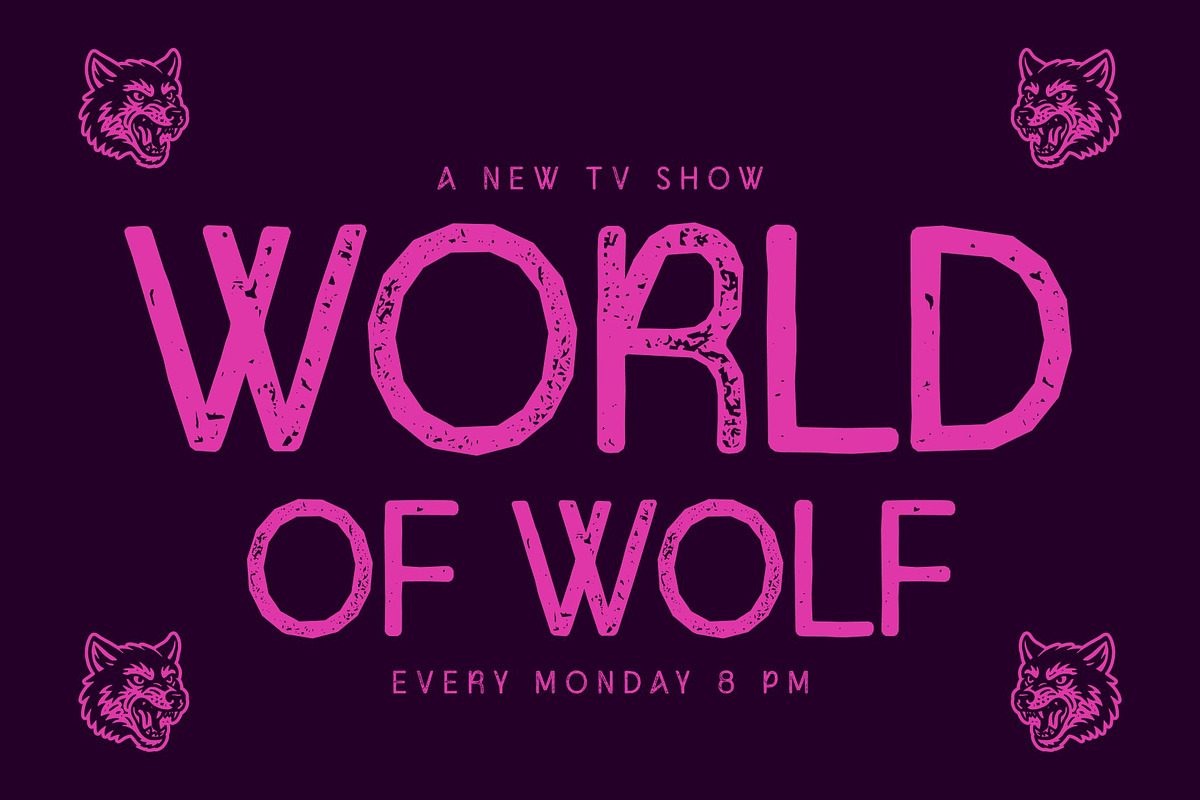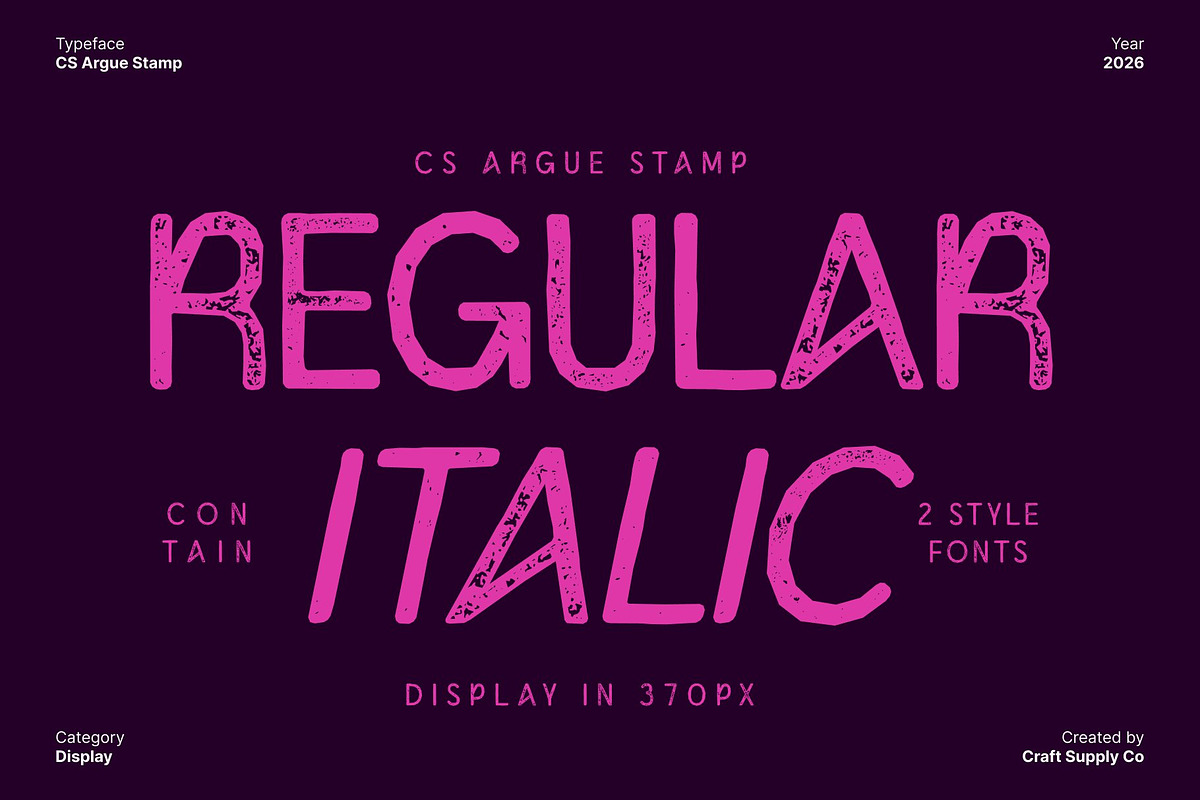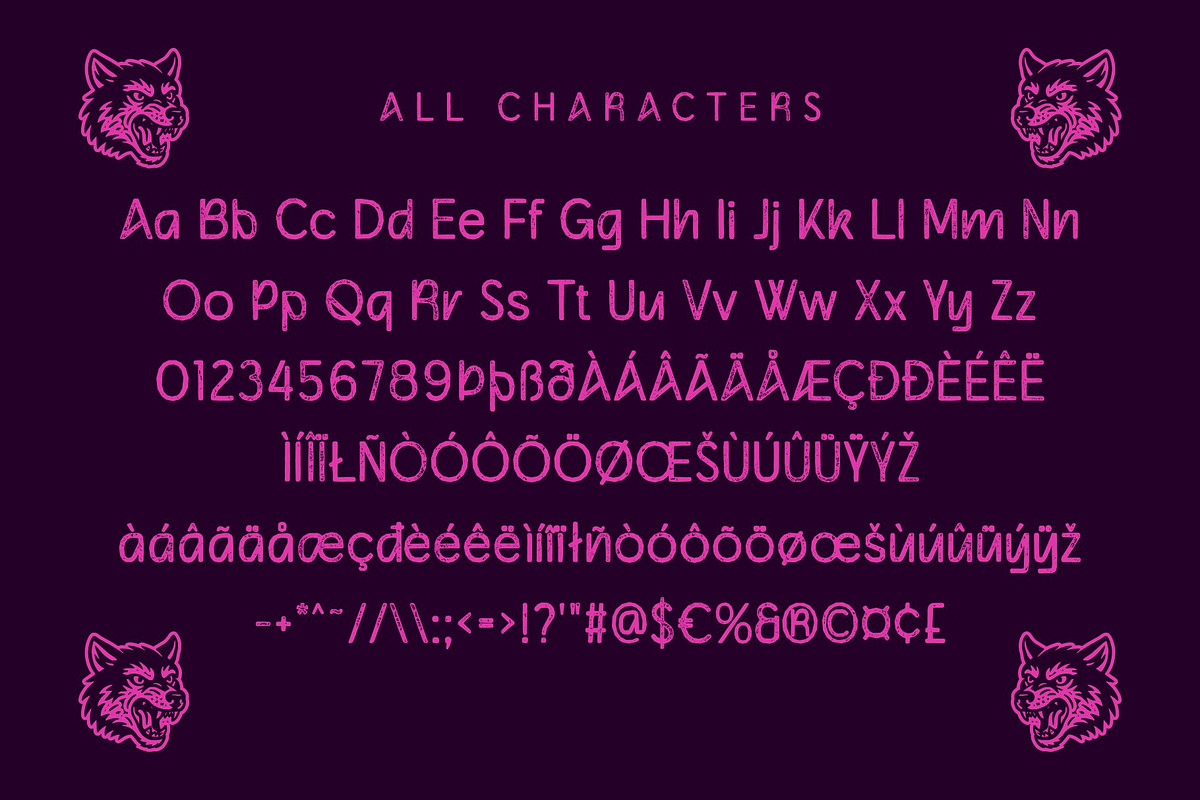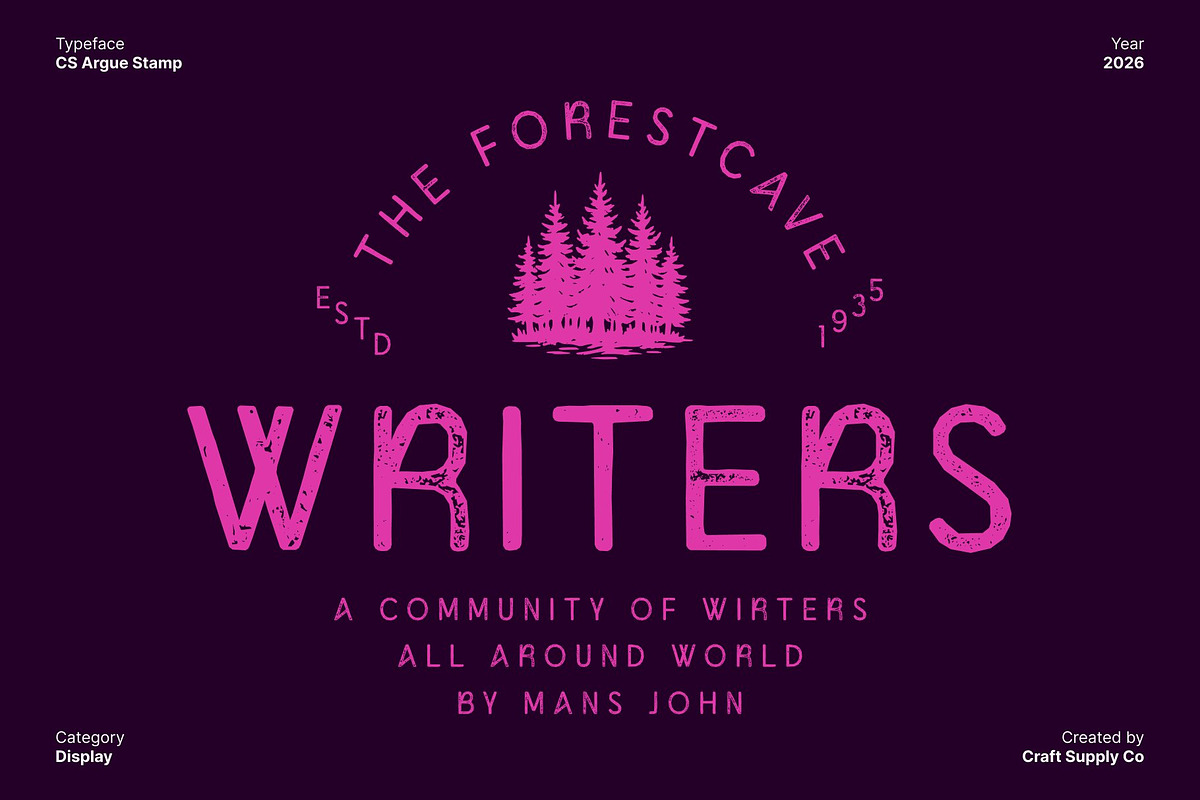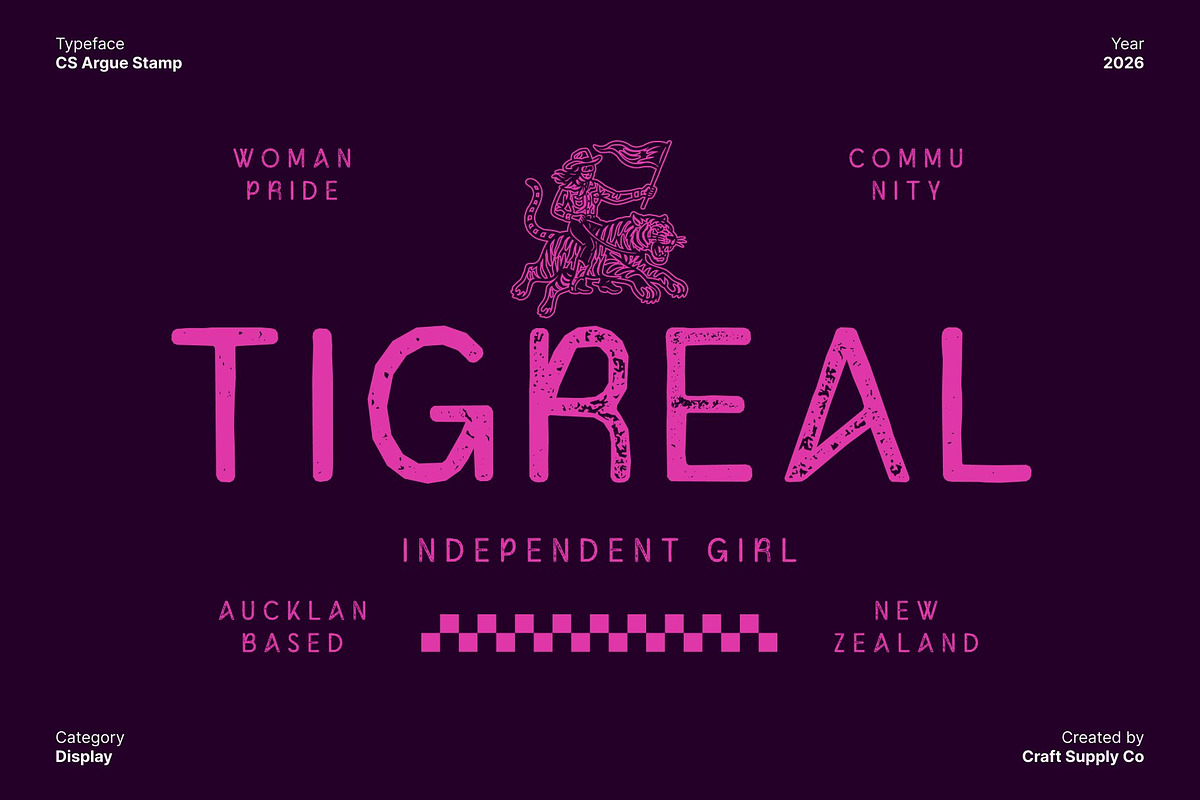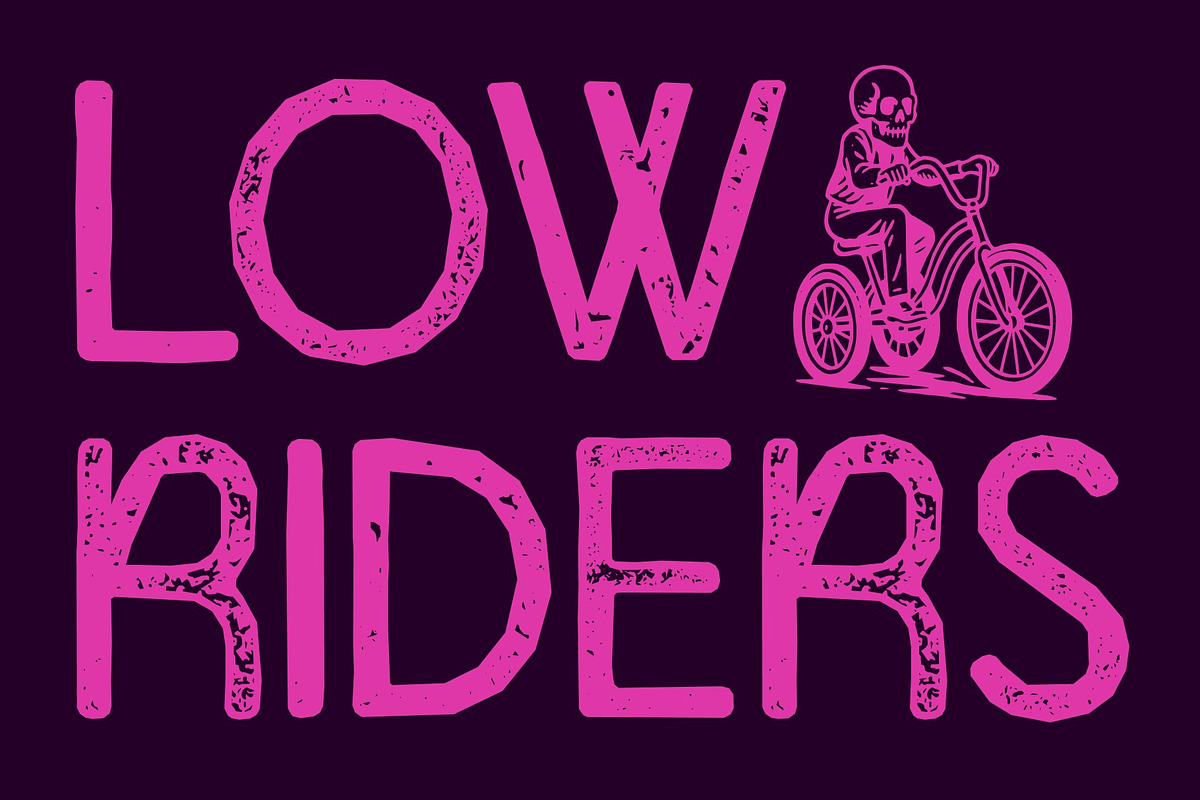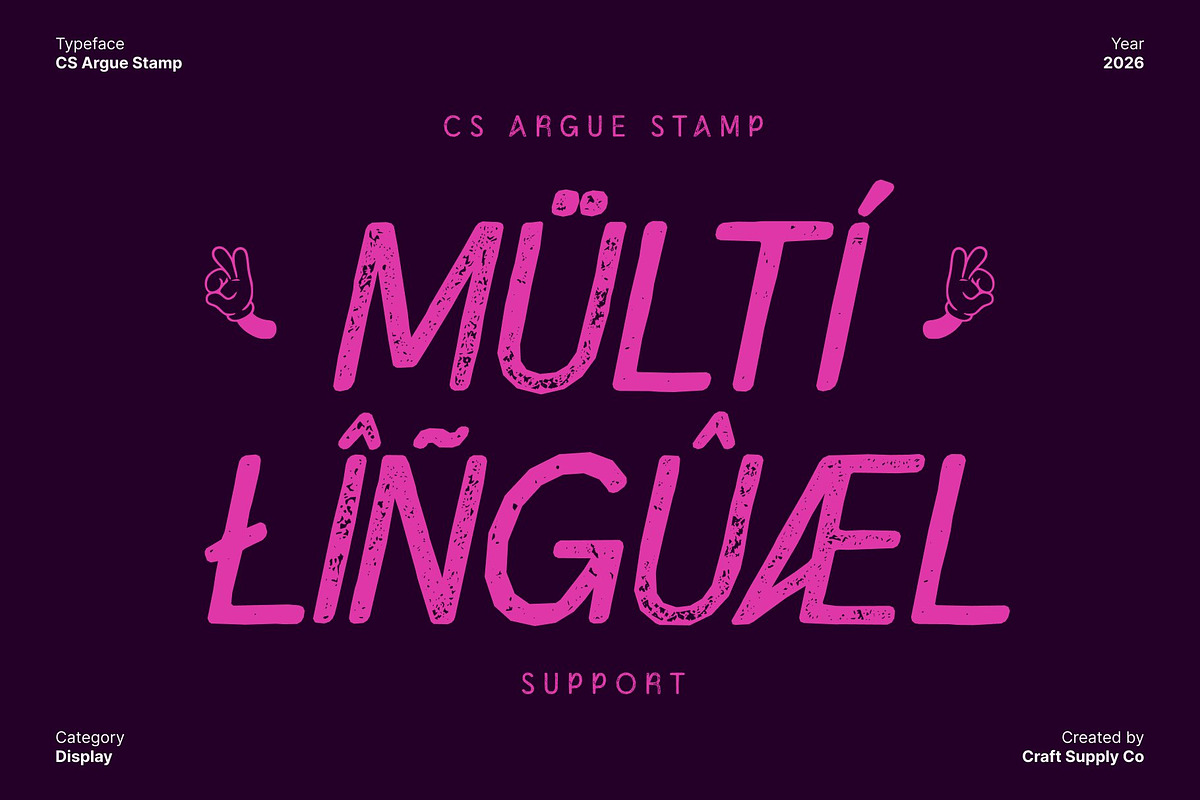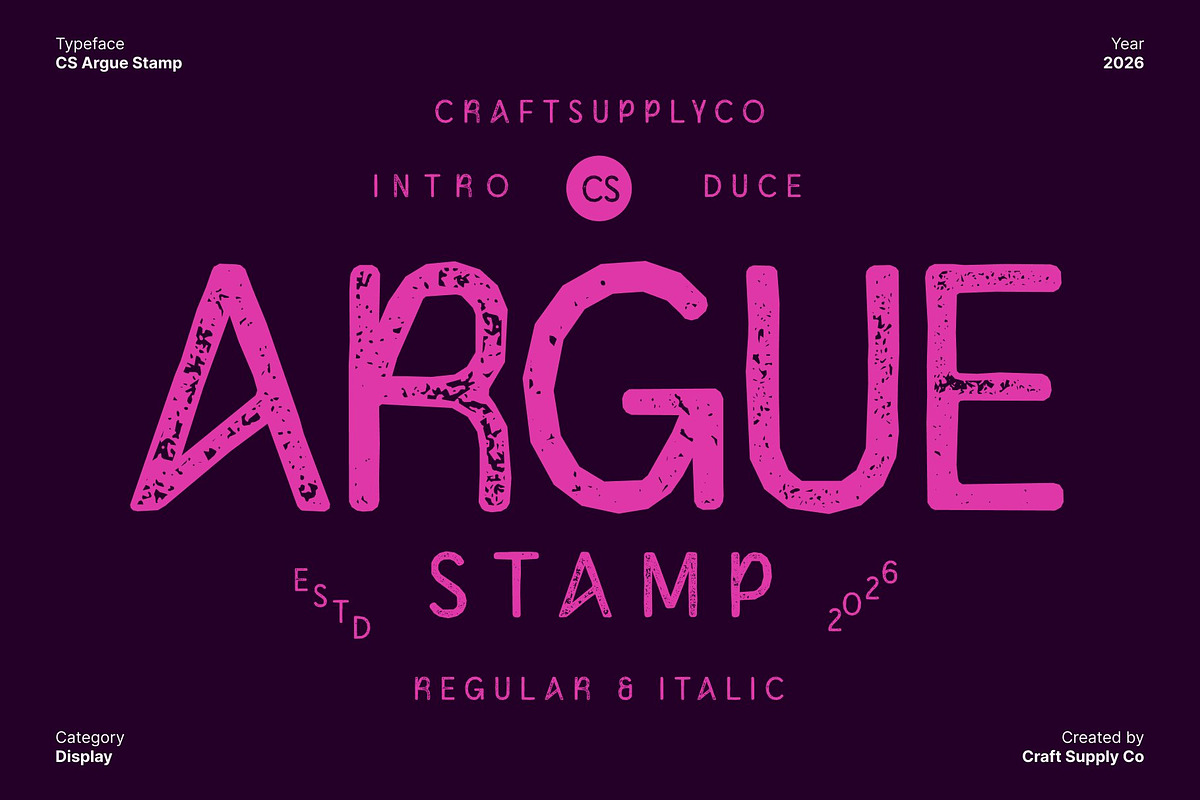
CS Argue Stamp
CS Argue Stamp – Modern Simplicity with Quirky Expression
Modern Sans Serif with Experimental Character This is a modern sans serif font that blends clean, contemporary structure with quirky and experimental design details. Built on a minimalist foundation, it introduces playful proportions and unexpected nuances that give the typeface a fresh, expressive personality without losing clarity or functionality.
Clean Construction with Subtle Quirks What defines is its balance between simplicity and individuality. Unique letter shapes, unconventional cuts, and thoughtfully adjusted spacing create visual interest while maintaining strong readability. These subtle experimental touches add charm and distinction, allowing the font to feel polished yet creatively bold.
Stamped Texture for Organic, Authentic Feel The stamped style adds a rough, slightly uneven texture that brings warmth and character to the clean sans serif form. This tactile effect introduces a handmade, authentic quality that softens the modern structure, giving the font a vintage-adjacent, artistic edge while still feeling current and stylish.
Perfect for Branding, Editorials, and Creative Layouts Designed for versatile use, this font works beautifully in branding, visual identities, editorials, posters, packaging, and digital content. Its clean yet quirky personality makes it especially effective for fashion brands, creative studios, lifestyle projects, and modern campaigns that want to stand out with subtle originality.
CS Argue Stamp Regular
CS Argue Stamp Italic